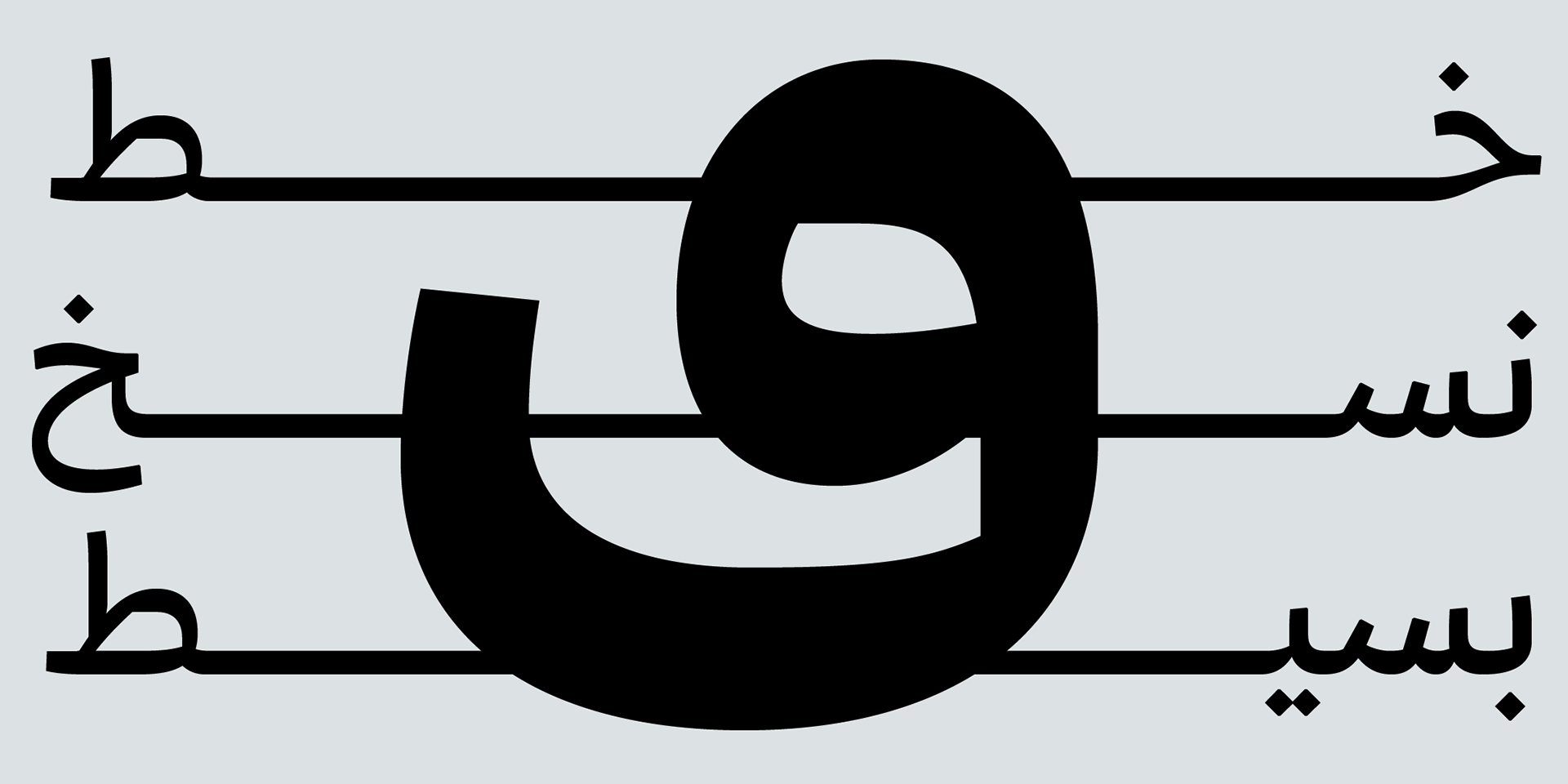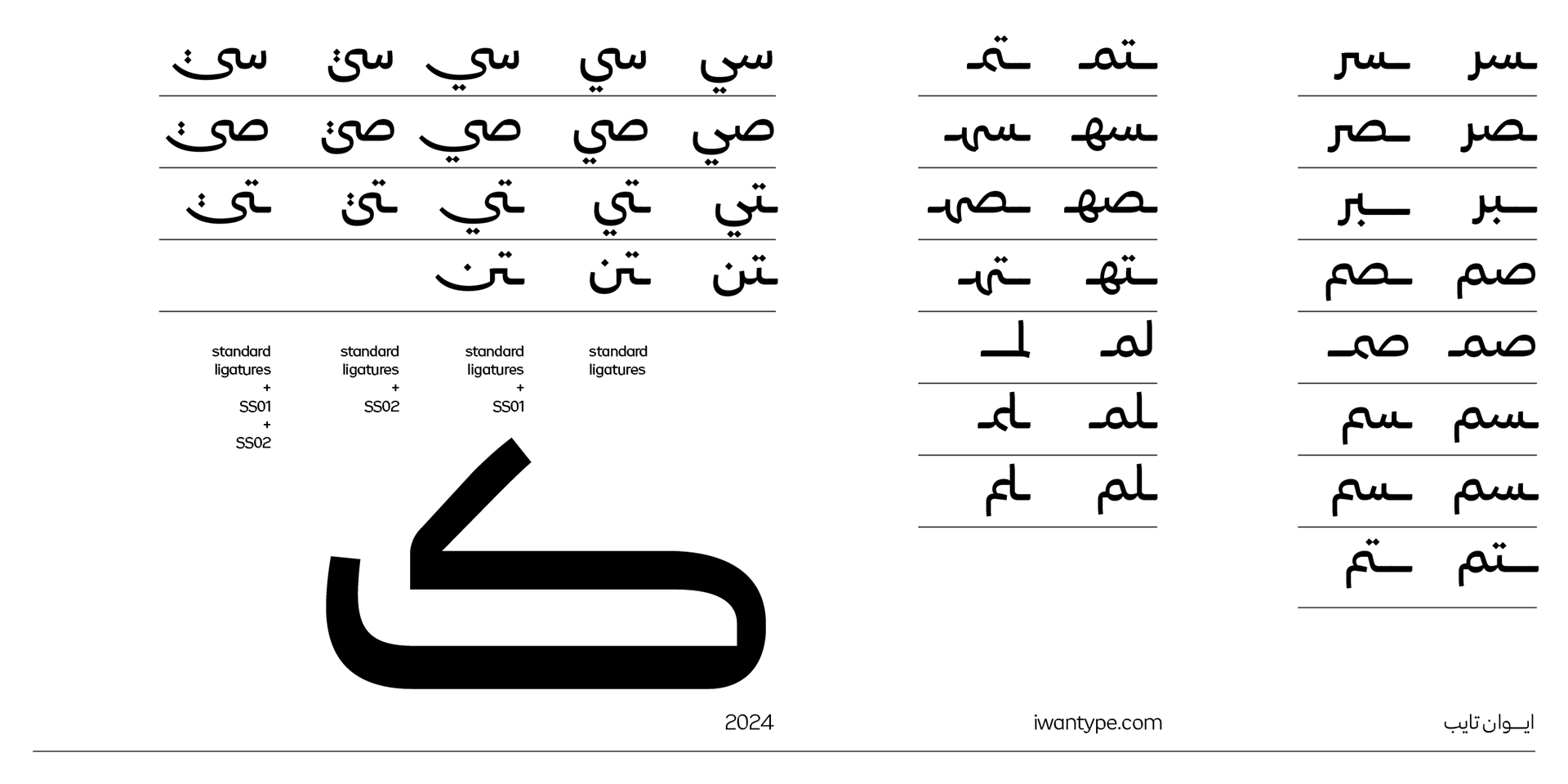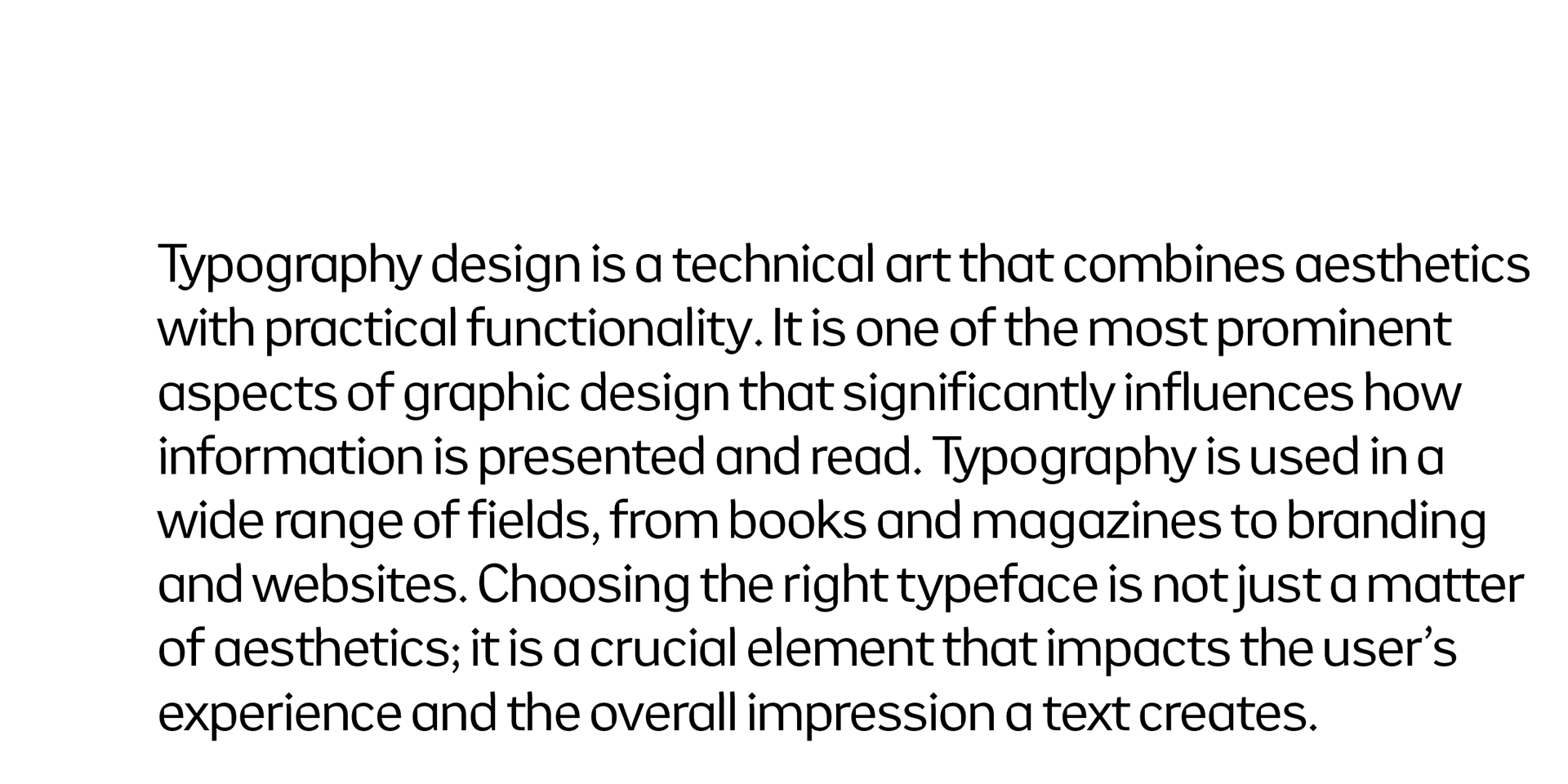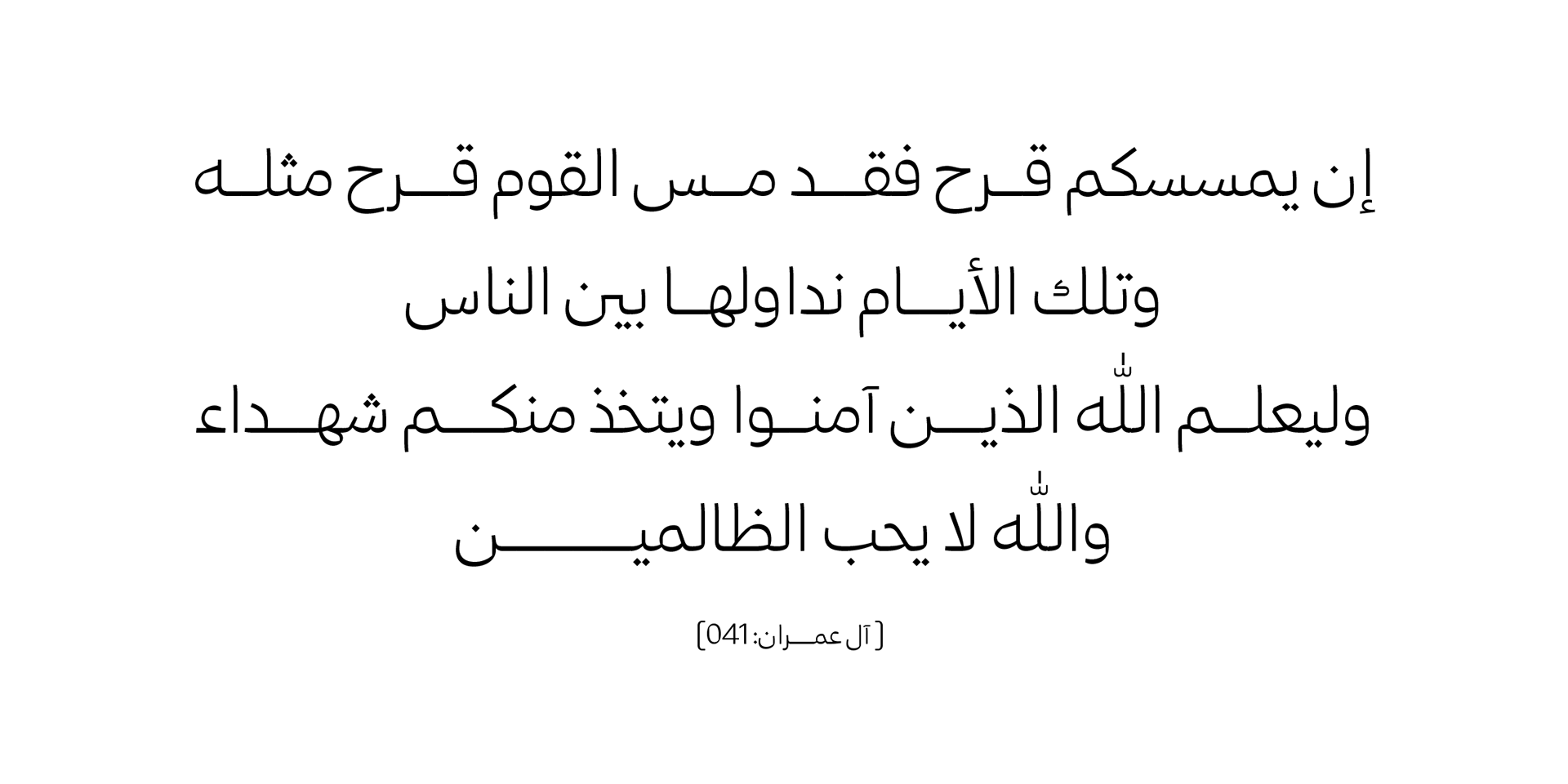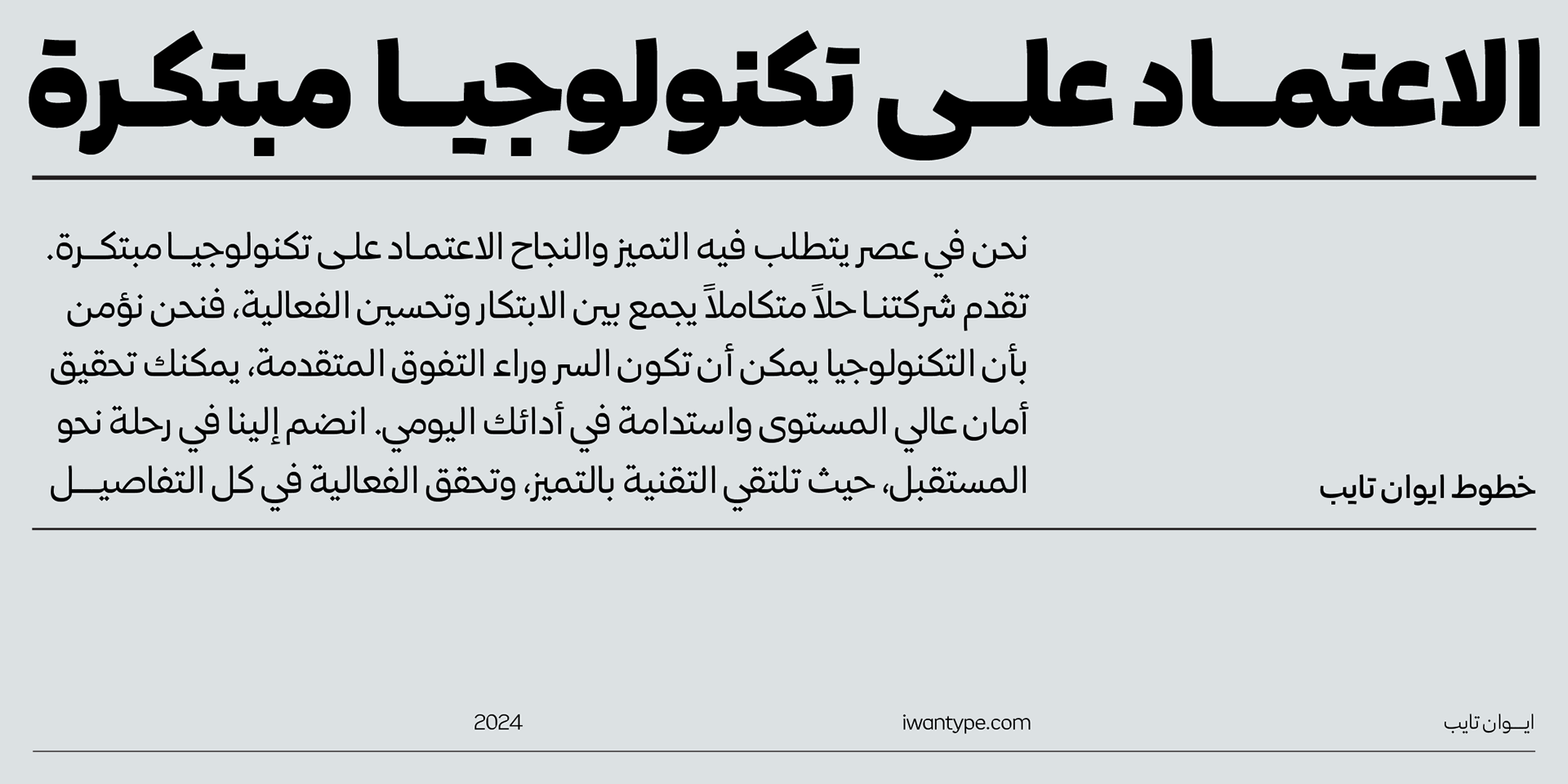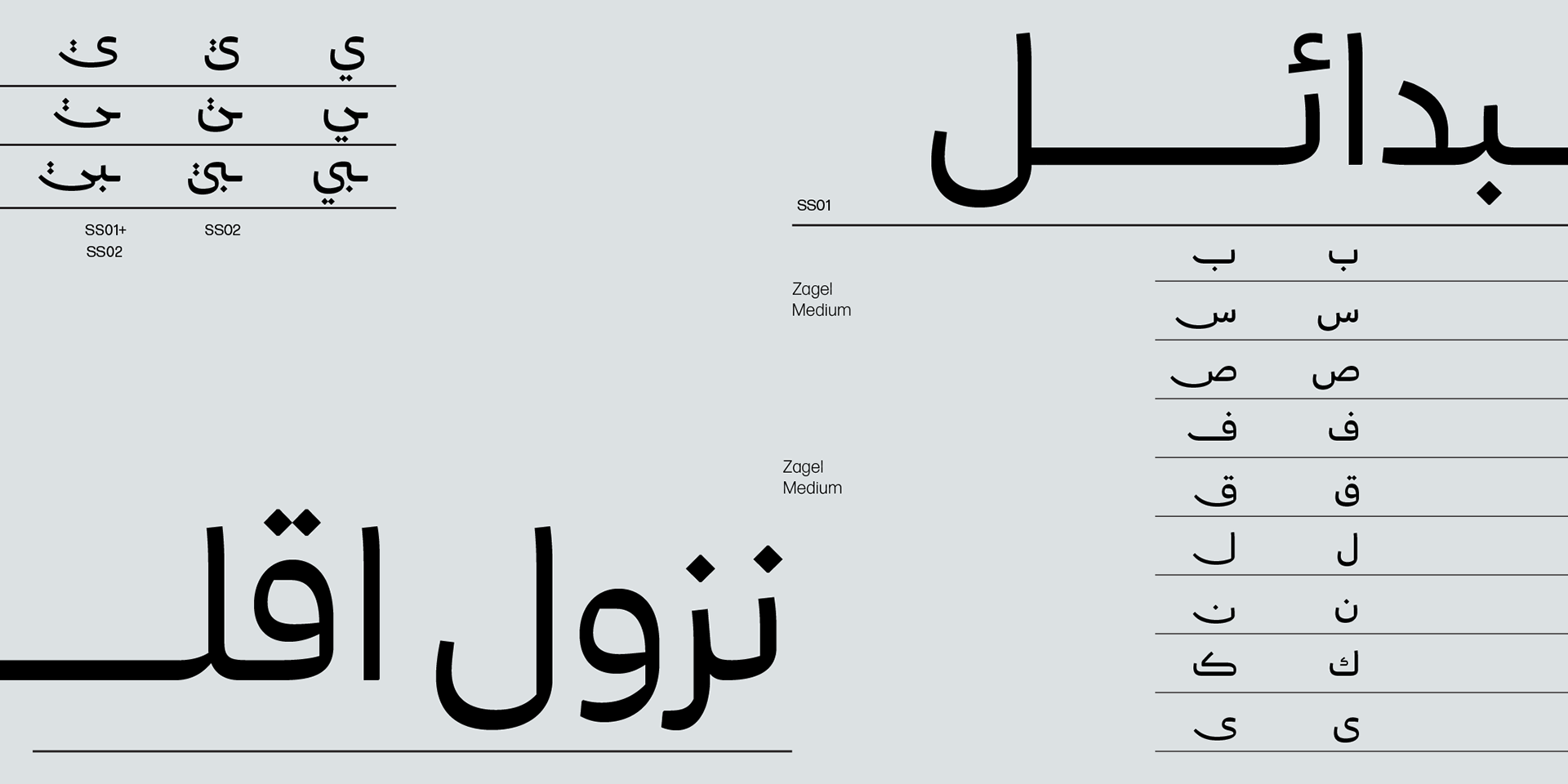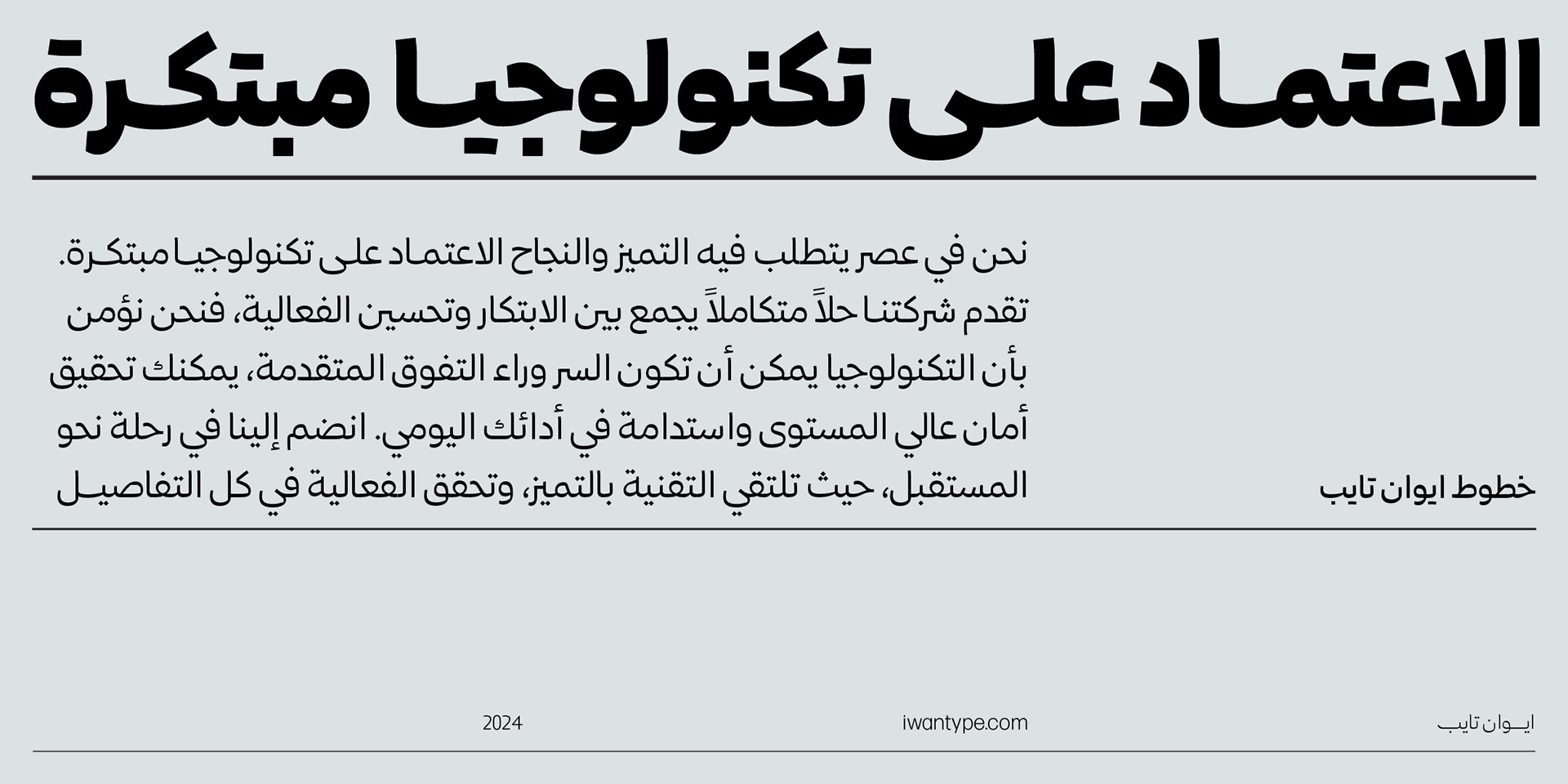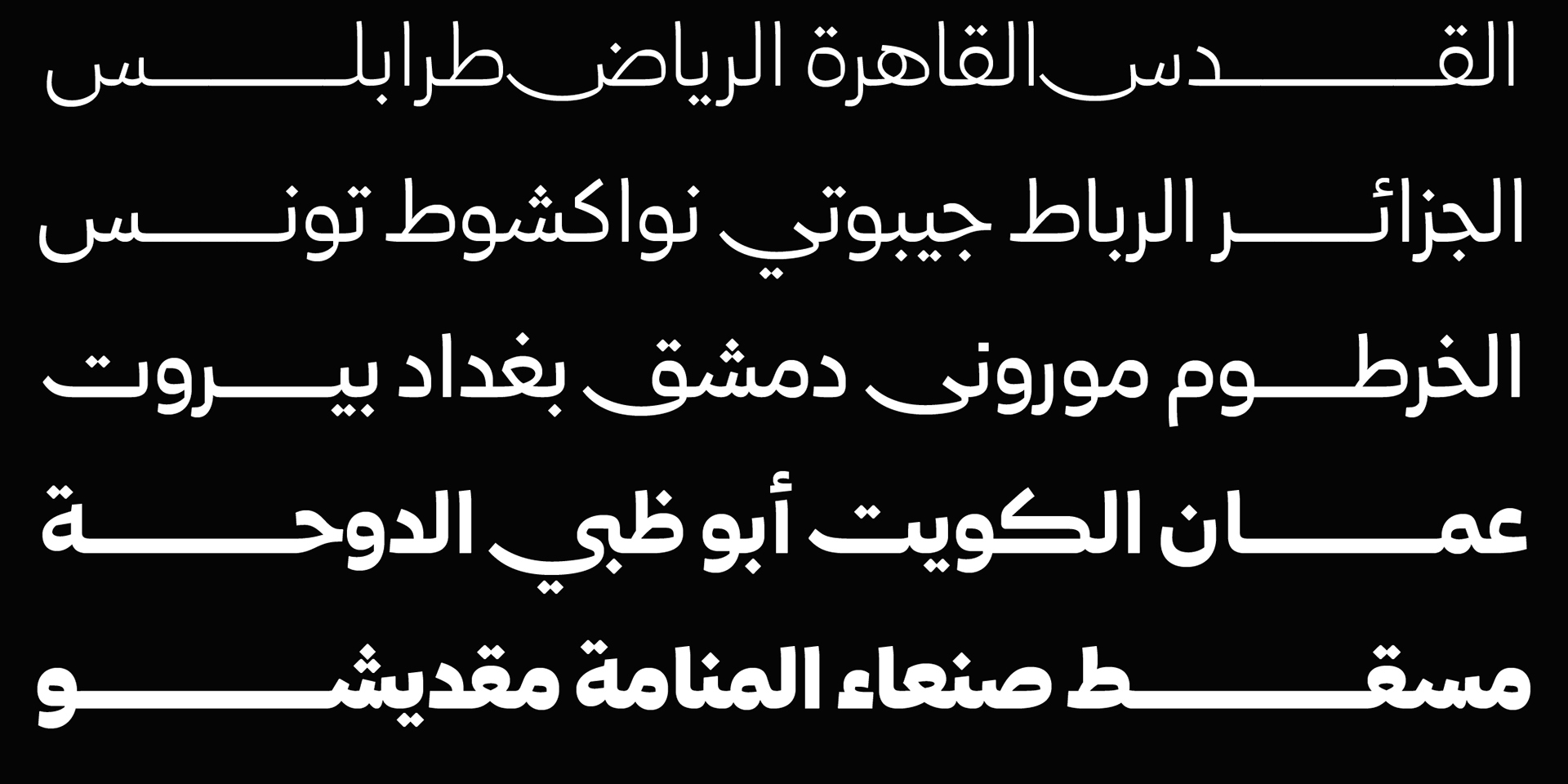
يدعم خط زاجل اللغة العربية والانجليزية. ويمكن استخدامه في تصميم الجرافيك، والكتابة المطبوعة، والويب، والتطبيقات٫
Zajil typeface is distinguished by its modern design that combines angles and curves, giving it a distinctive look. It also supports many Open Type features, making it an ideal choice for use in a variety of applications.
The Zajil typeface supports the Arabic and Latin. It can be used in graphic design, print writing, web, and mobile applications.